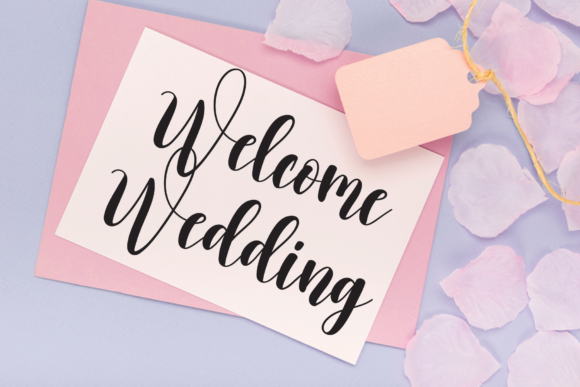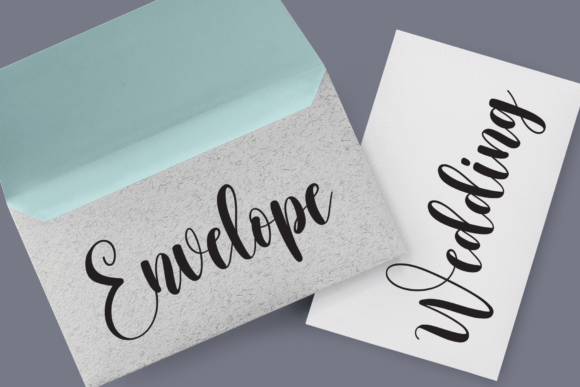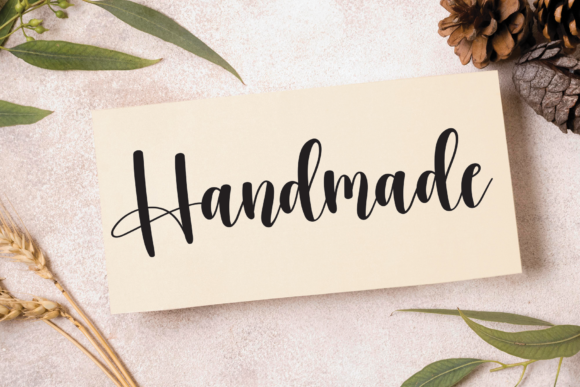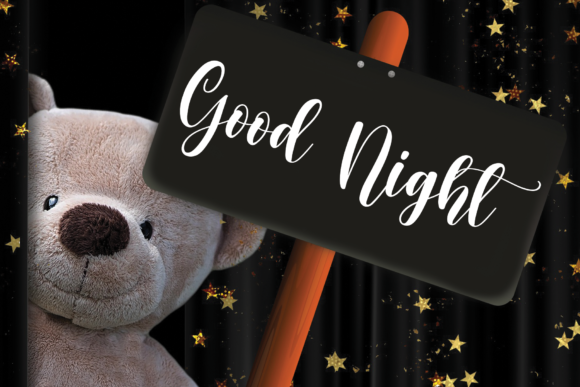
Introducing Harmonis Font: The Elegant and Charming Choice for Designers and Crafters
Are you looking for a font that exudes elegance and charm? Look no further than Harmonis Font! This beautiful handwritten font is perfect for adding a touch of sophistication to any design project. In this article, we’ll take a closer look at Harmonis Font and explore its features, uses, and benefits for designers and crafters.
What is Harmonis Font?
Harmonis Font is a stunning handwritten font that feels equally charming and elegant. Its unique and flowing script makes it perfect for a variety of design projects, from wedding invitations and greeting cards to logos and business cards. With its elegant and refined appearance, Harmonis Font is sure to impress.
Features of Harmonis Font
So, what makes Harmonis Font so special? Here are just a few of its key features:
• Handwritten script: Harmonis Font has a beautiful, flowing handwritten script that adds a touch of elegance to any design.
• Charming and elegant: This font exudes charm and sophistication, making it perfect for designs that require a refined look.
• Versatile: Harmonis Font can be used for a wide range of design projects, from wedding invitations and greeting cards to logos and business cards.
Uses of Harmonis Font
So, what can you use Harmonis Font for? The possibilities are endless! Here are just a few ideas to get you started:
• Wedding invitations: Add a touch of elegance to your wedding invitations with Harmonis Font.
• Thank you cards: Show your appreciation with beautifully designed thank you cards featuring Harmonis Font.
• Quotes: Add a touch of sophistication to your quotes with Harmonis Font.
• Greeting cards: Create beautiful greeting cards for any occasion with Harmonis Font.
• Logos: Use Harmonis Font to create a unique and elegant logo for your business.
• Business cards: Stand out from the crowd with beautifully designed business cards featuring Harmonis Font.
Benefits of Using Harmonis Font
So, why should you choose Harmonis Font for your design projects? Here are just a few benefits:
• Elegant and refined: Harmonis Font adds a touch of elegance and sophistication to any design.
• Versatile: This font can be used for a wide range of design projects.
• Easy to read: Harmonis Font is clear and easy to read, making it perfect for designs that require a lot of text.
• Unique: Harmonis Font is a unique and distinctive font that will help your designs stand out from the crowd.
Tips for Using Harmonis Font
Here are a few tips for using Harmonis Font in your design projects:
• Use it sparingly: Harmonis Font is best used sparingly, as it can be overwhelming if used too much.
• Pair it with other fonts: Harmonis Font looks great when paired with other fonts, such as sans serif fonts.
• Experiment with colors: Harmonis Font looks great in a variety of colors, so don’t be afraid to experiment.
Font Name Harmonis Font
Author Creativewhitee
In conclusion, Harmonis Font is a beautiful and elegant handwritten font that is perfect for designers and crafters. With its unique and flowing script, charming and elegant appearance, and versatility, Harmonis Font is sure to impress. Whether you’re creating wedding invitations, greeting cards, logos, or business cards, Harmonis Font is a great choice. So why not give it a try and see the difference it can make in your designs?